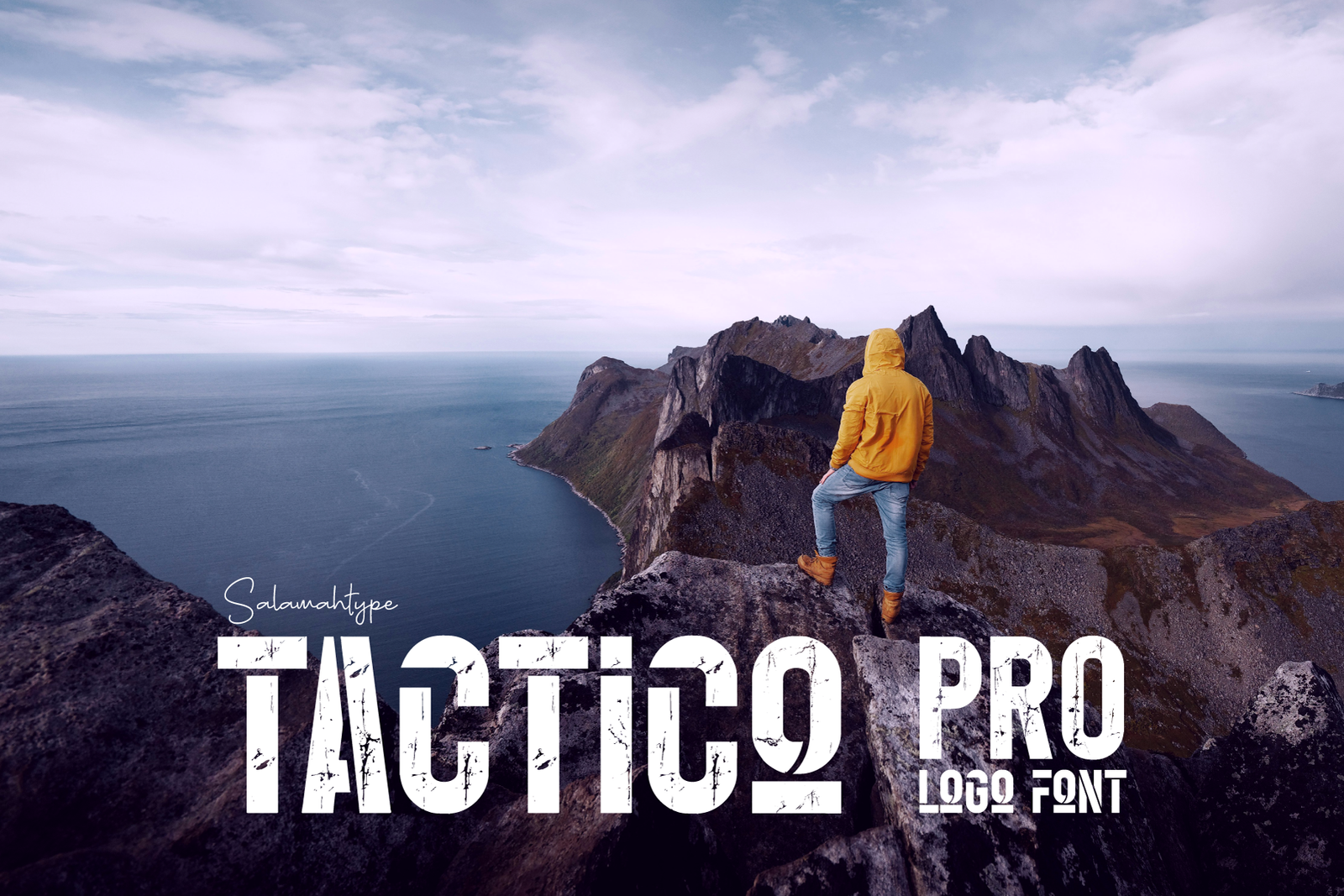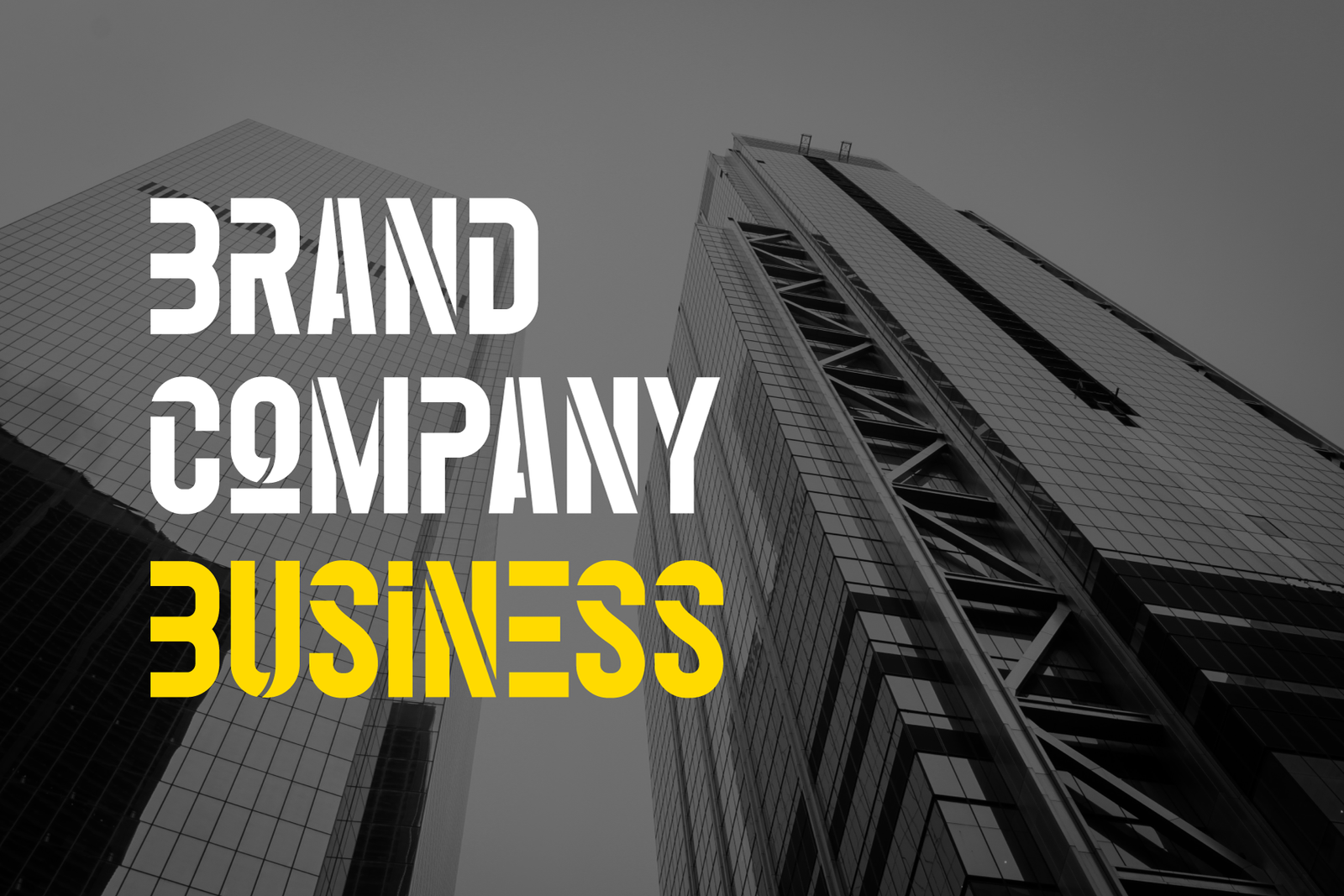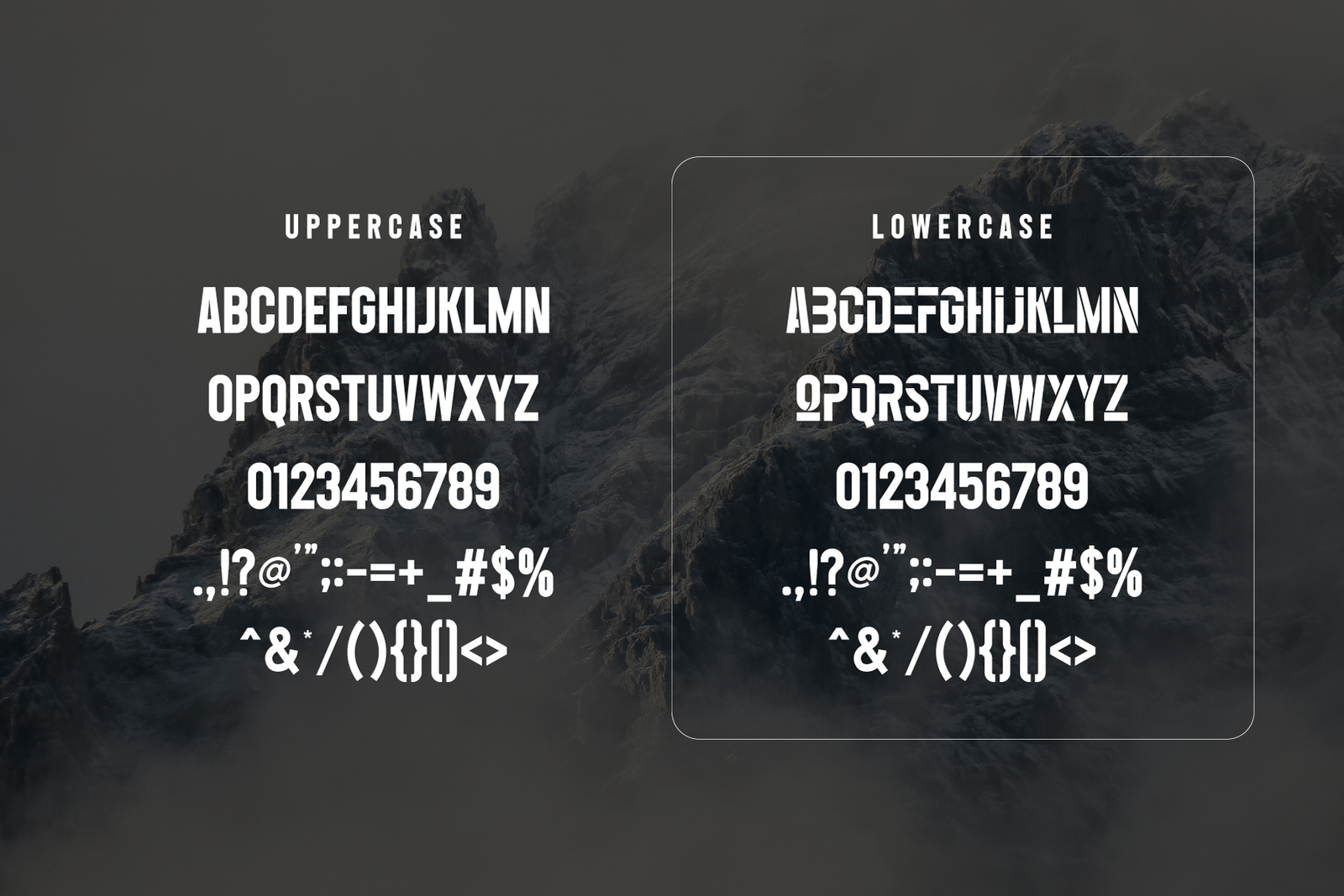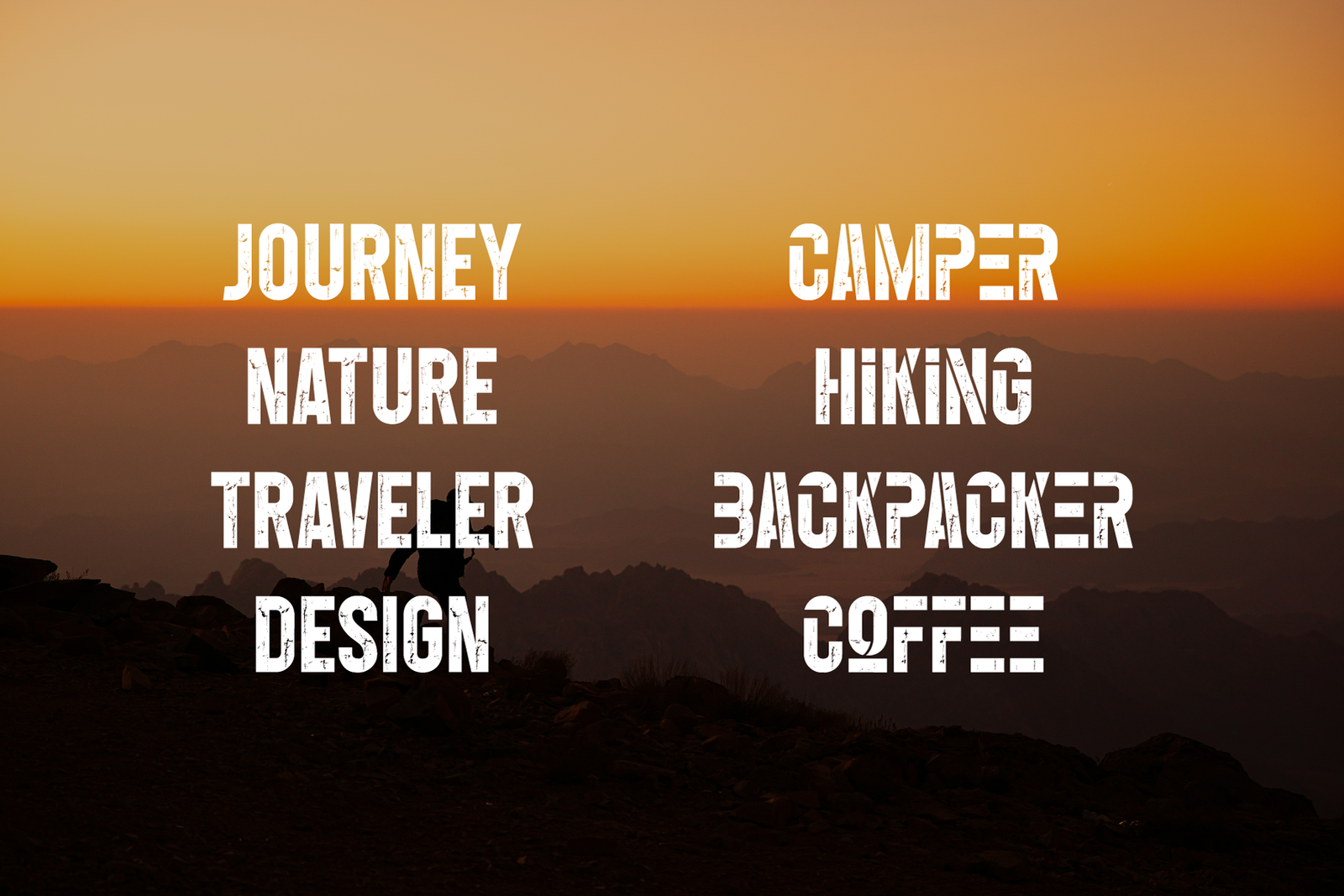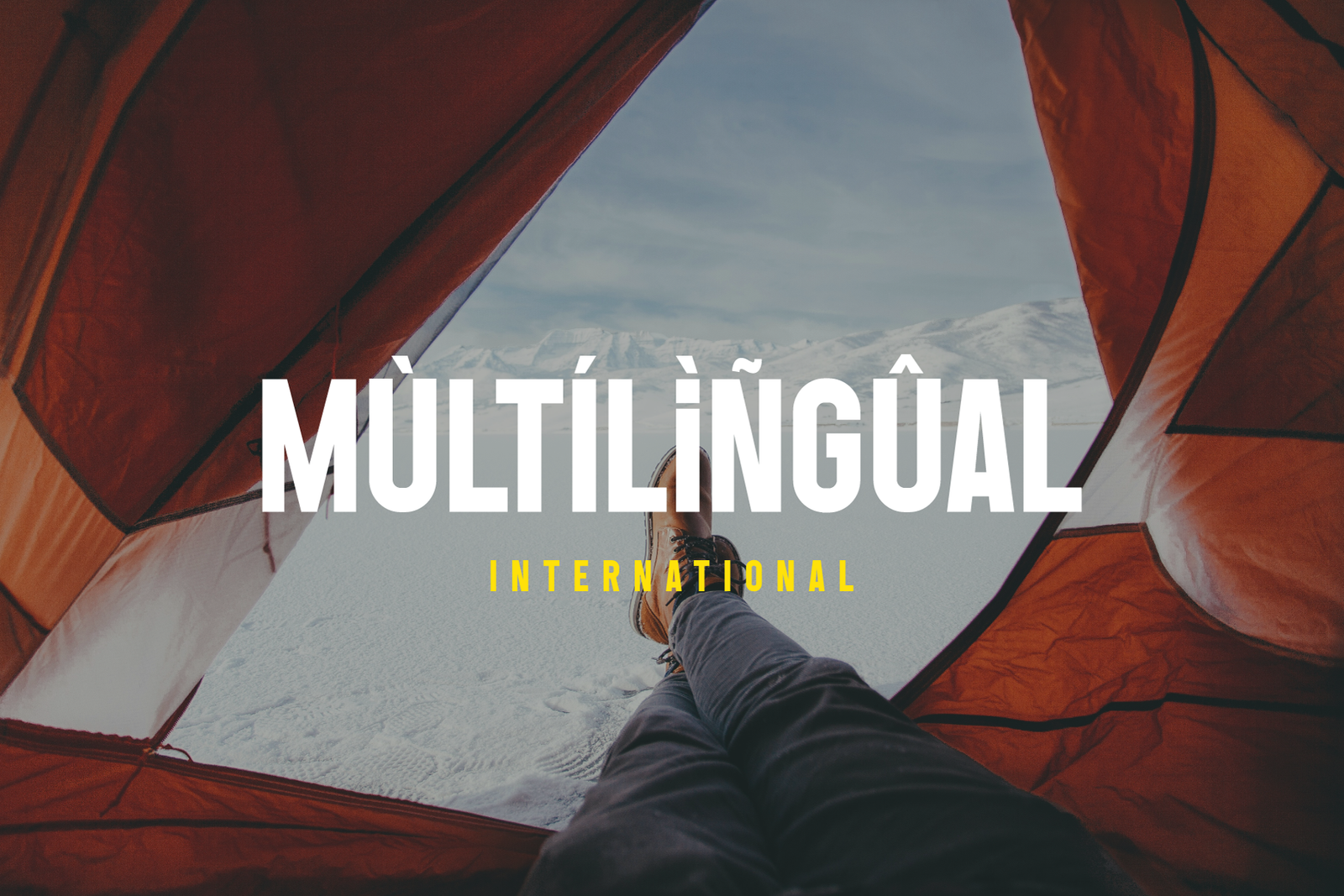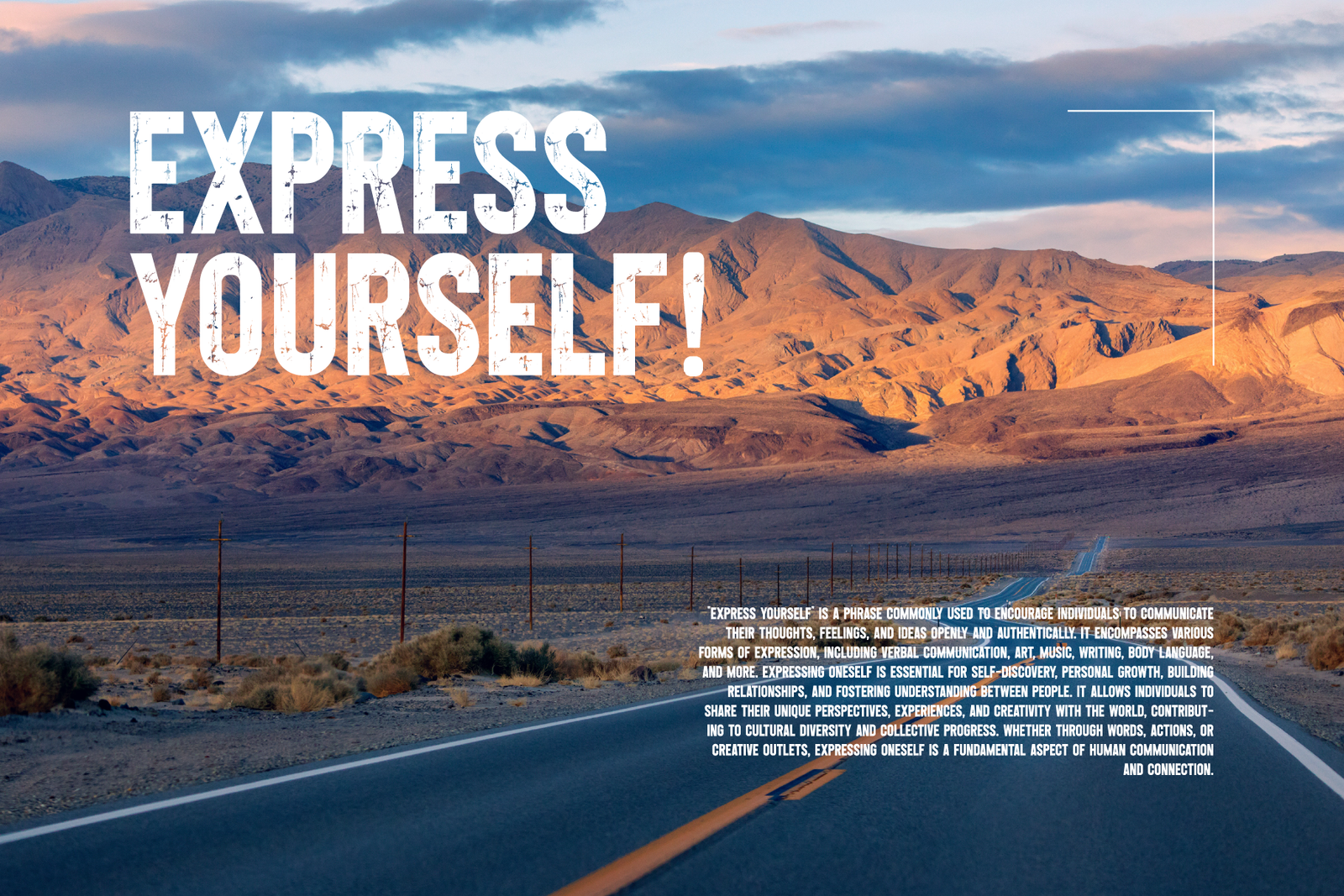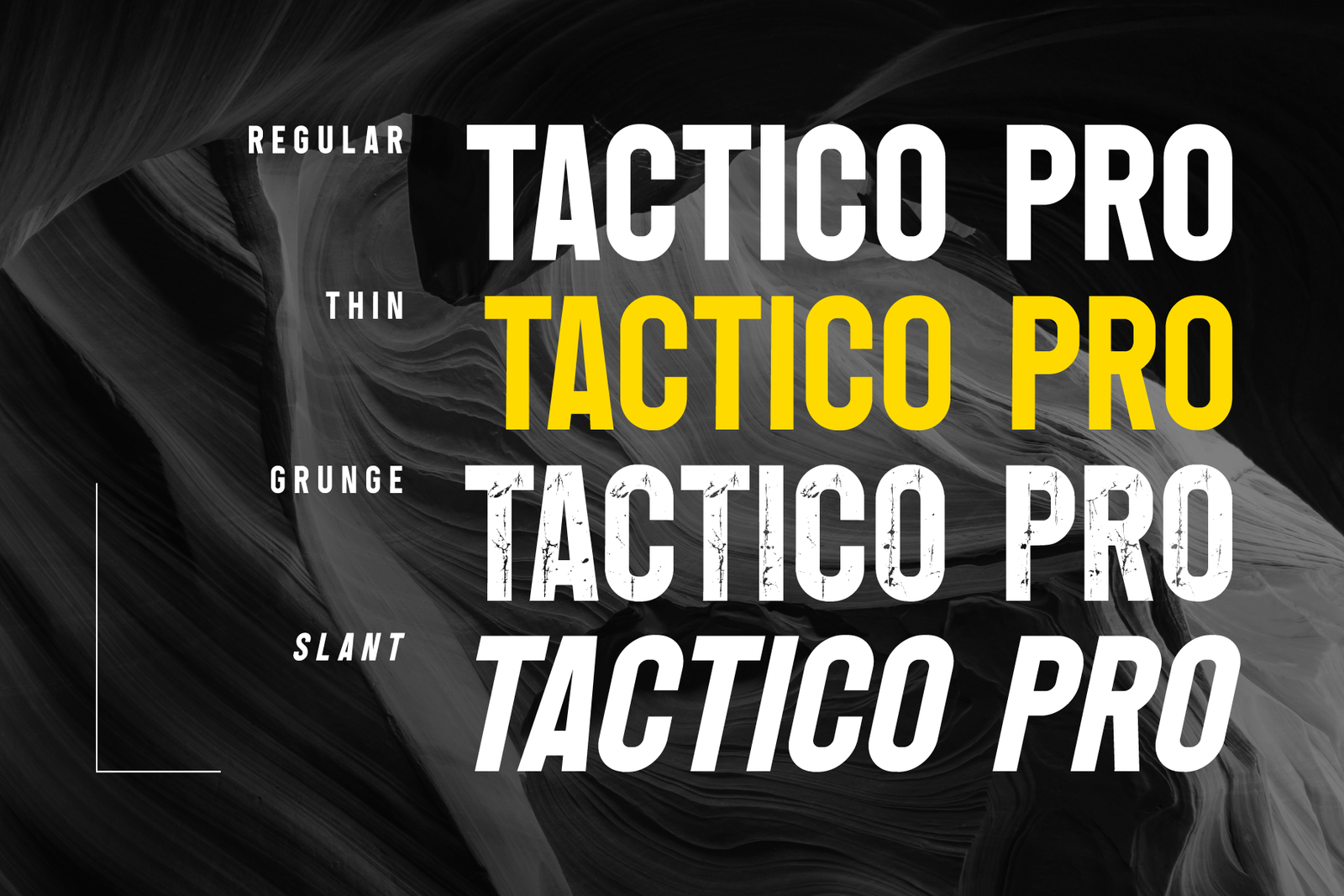
- Tactico Pro
Introducing Tactico Pro, a bold, all-caps font that’s all about making a statement! This font is designed to showcase style and personality, making it perfect for logos and display text. One of its standout features is the grunge or distressed look, which adds a unique touch to your designs. Whether you’re working on branding logos, print media, product packaging, or any other creative project, Tactico Pro gives you the flexibility to stand out.
Tactico Pro comes in four versatile styles: regular, grunge/distressed, thin, and slant. The regular style offers a strong, clean look that works well in professional settings, while the grunge style brings an edgy vibe that’s perfect for designs that need a bit of character. If you want something sleek, the thin style provides a modern touch, and the slant style adds a dynamic feel that’s great for energetic projects.